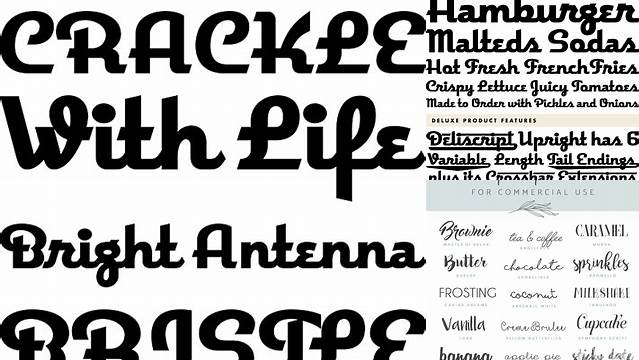
DeliScript Font Free: Your Design Guide
What is DeliScript Font?
First things first: What exactly is DeliScript? It's a stunning, handwritten-style script font that exudes elegance and a touch of vintage charm. Think of those beautifully crafted signs you see in delis or cafes – that's the vibe DeliScript is all about. It's known for its fluid strokes, graceful curves, and overall readability, making it a popular choice for various design projects. Whether you're a seasoned graphic designer or just starting out, this font is a fantastic asset to have in your toolkit. Now, let's get into the juicy details, shall we?
A Brief History of DeliScript
While the exact origins might be shrouded in a bit of mystery (like a good secret recipe!), DeliScript has made a significant splash in the font world. Its popularity has grown over time, as designers realized its potential to add a personal and sophisticated touch to their projects. The font's timeless appeal ensures it remains a favorite among those looking to create visually appealing designs. So, who created this awesome font? Well, the talented DeliScript font designer is Alit Design. This font has been loved and used by a lot of users because it feels like the font is handwritten. The cursive and elegant feel of the font is what makes people love this font.
So, what makes DeliScript so special? Let's break down some of its key features:
- Handwritten Style: The font's main charm lies in its realistic handwritten appearance. It's not just a font; it's like a piece of art.
- Fluid and Graceful Strokes: The lines flow seamlessly, adding a sense of movement and sophistication.
- Excellent Readability: Despite its script style, DeliScript is surprisingly easy to read, making it suitable for various applications.
- Versatile: From logos and invitations to website headers and social media graphics, DeliScript fits right in.
- Elegant and Classic: It embodies a timeless aesthetic that will never go out of style. If you want to show that you're sophisticated, then this font is a great choice.
Using DeliScript in Your Designs
Best Practices for Font Usage
- Pairing with Other Fonts: DeliScript pairs wonderfully with clean, sans-serif fonts for a balanced look. Try using it for headlines and a simple sans-serif font for body text. This creates a nice visual contrast.
- Choosing the Right Color Palette: The color you use with DeliScript can significantly impact its overall feel. Consider using it with colors that are elegant and easy to read. This includes white, black and grey.
- Font Size and Spacing: Make sure your font size is easy to read and that the spacing between letters and lines is appropriate. This font can be a little hard to read so it’s best to make sure it’s readable.
Design Project Ideas
- Logos and Branding: DeliScript can add a touch of personality and sophistication to your logo. This helps people notice your logo and brand because of the nice aesthetics.
- Invitations and Greeting Cards: Perfect for weddings, birthdays, or any special occasion where you want to add a personal touch.
- Website Headers and Titles: Use it to create eye-catching headers or titles that grab attention.
Conclusion: Elevate Your Design with DeliScript
So, there you have it! DeliScript font free is a fantastic choice for anyone looking to add elegance, personality, and a touch of sophistication to their designs. With this guide, you're well-equipped to find and use this beautiful font effectively. Remember to always download fonts from safe sources and read the licensing information. Happy designing, and may your projects always look their best!